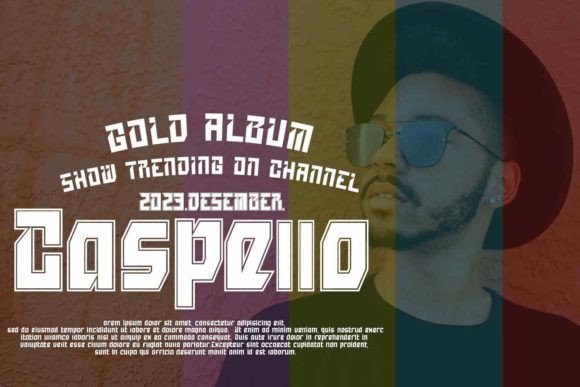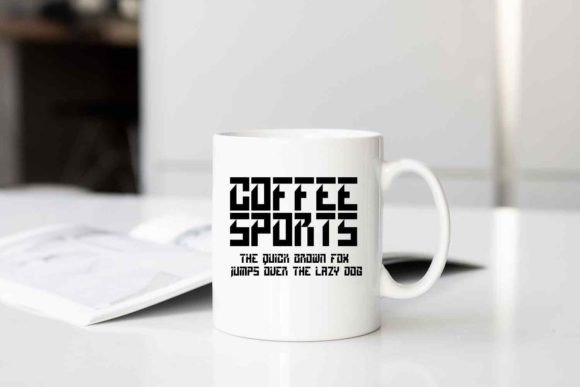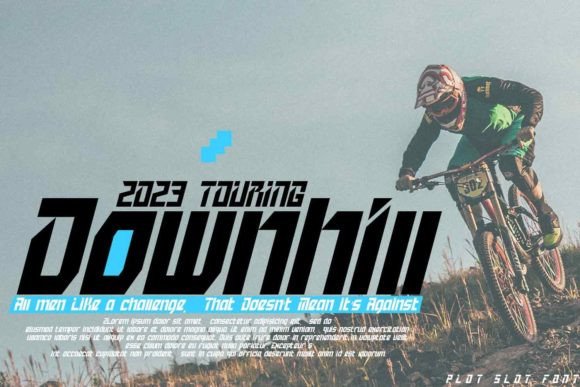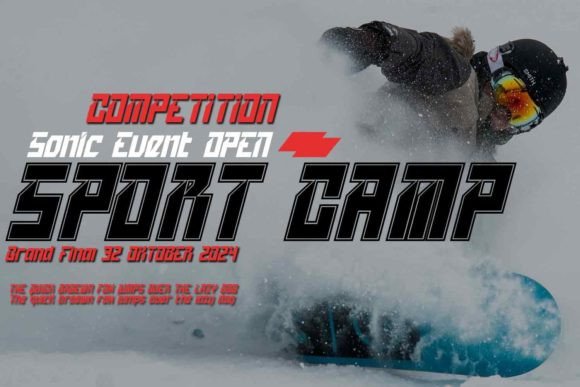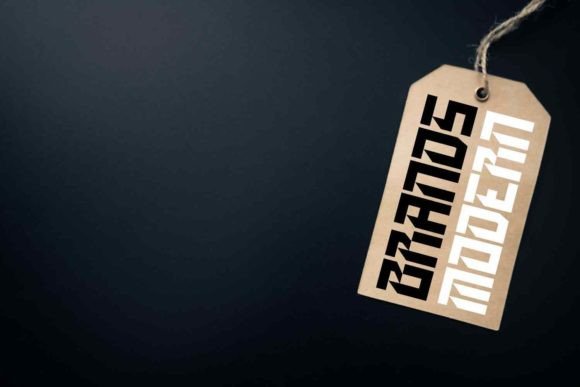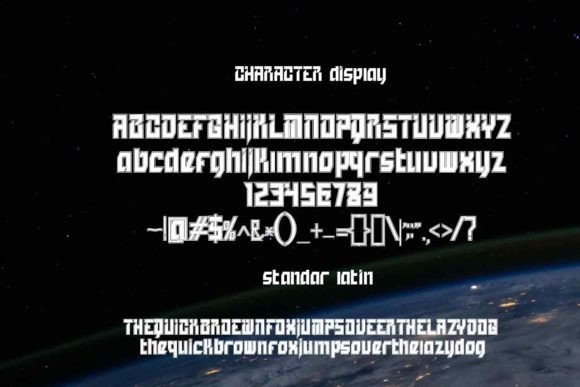
Introduction to Plot Slot Font Font
Fonts play a crucial role in design, and the Plot Slot Font font is a typeface that brings both character and versatility to any project. Whether you’re working on a branding project, a website, or a print design, the Plot Slot Font font offers a unique style that can elevate your work.
Plot Slot is a cool and modern display font.
This bold, unique, and interesting font can easily become your favorite It can be used for books, magazine covers, social media posts, invitations, and so much more.
Key Features of Plot Slot Font Font
Why Choose Plot Slot Font Font?
The Plot Slot Font font is more than just a typeface – it’s a design tool that helps you communicate your message with style and clarity. Its unique character set and versatile design make it suitable for a wide range of applications, from elegant invitations to bold headlines.
With its carefully crafted letterforms and balanced proportions, the Plot Slot Font font ensures readability and visual appeal across all mediums.
What makes Plot Slot Font font special?
The Plot Slot Font font stands out with its unique design, exceptional readability, and versatility across various design applications.